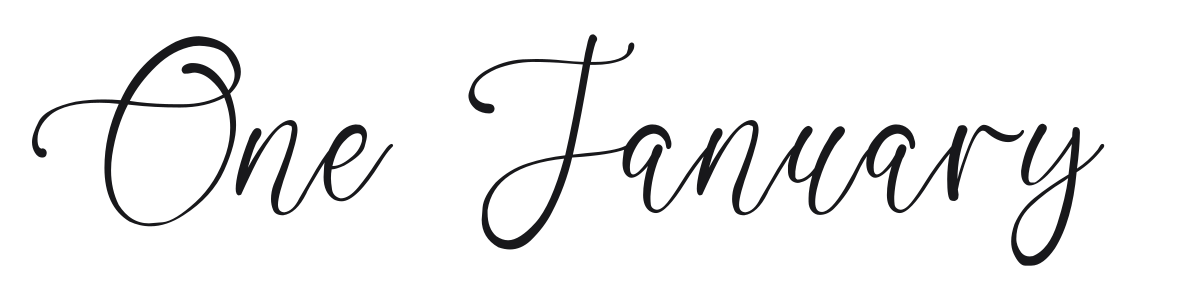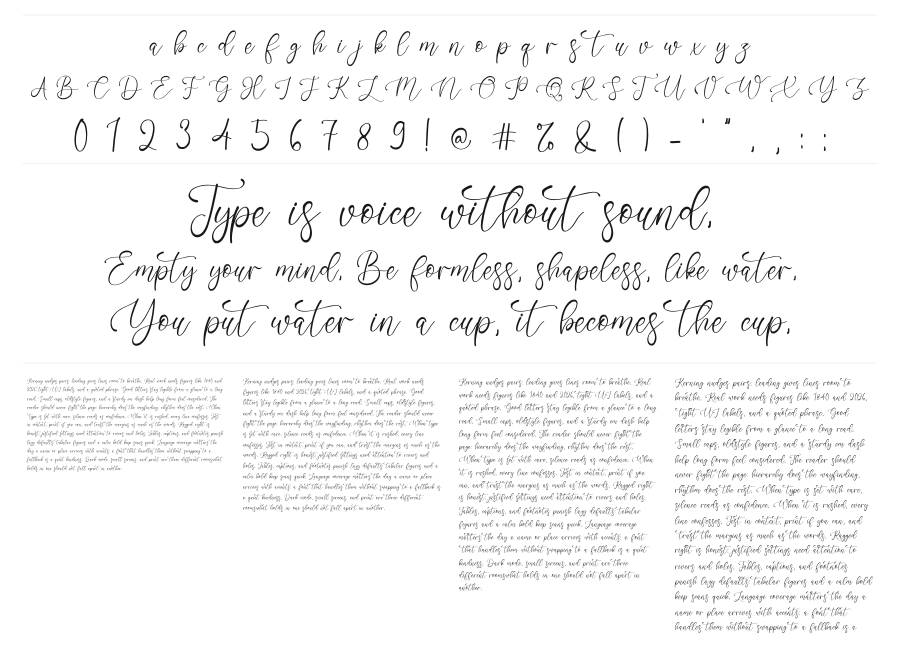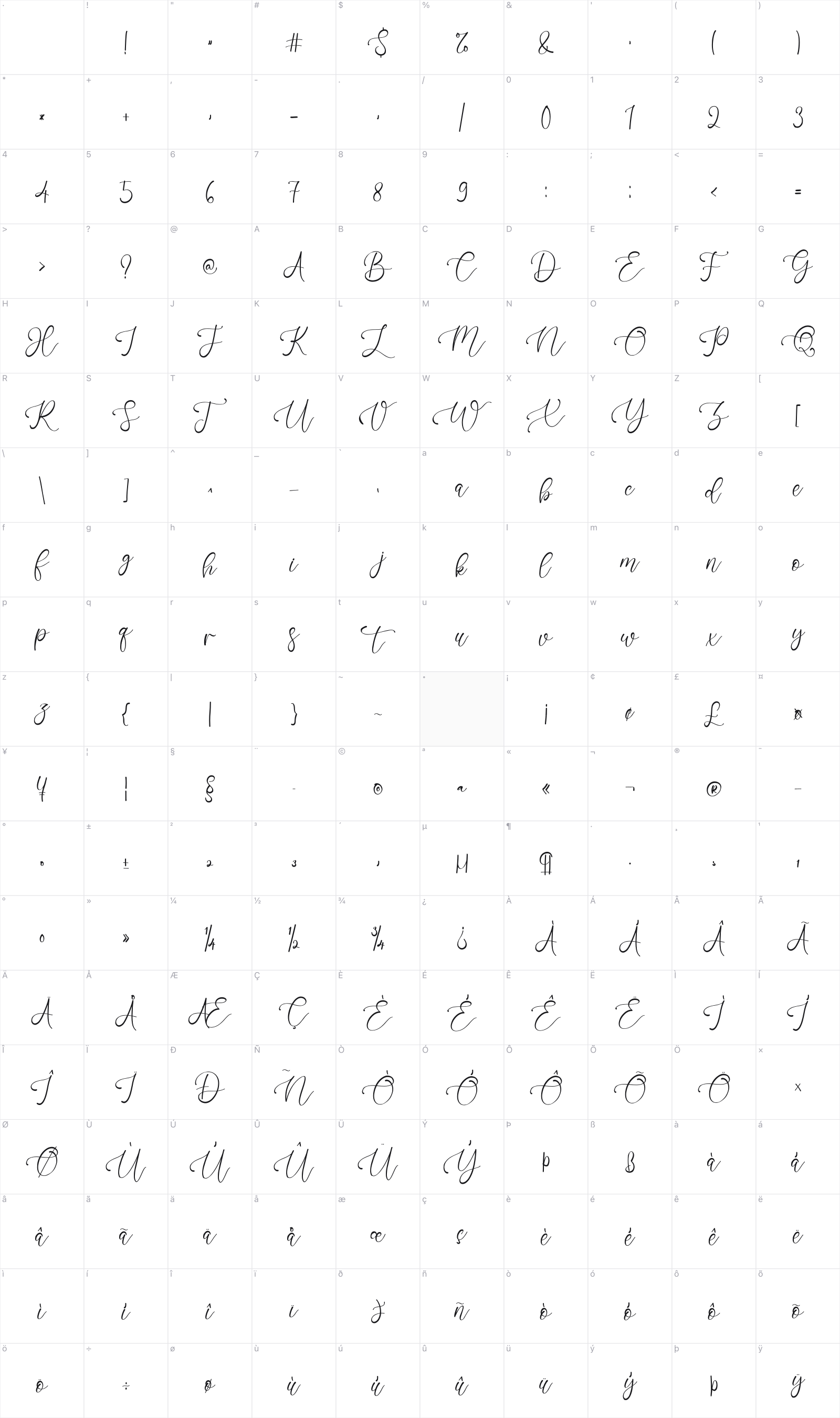
One January
One January is a flowing casual script with graceful looped ascenders and delicate hairline strokes that give it a contemporary calligraphic feel. The connected letters move with a natural, airy rhythm that reads as both polished and personal. It suits wedding invitations, brand identities, and editorial headlines where warmth and elegance need to coexist.